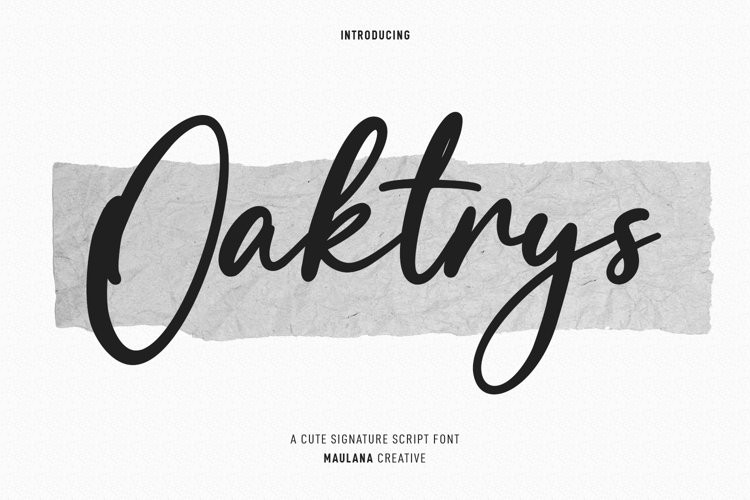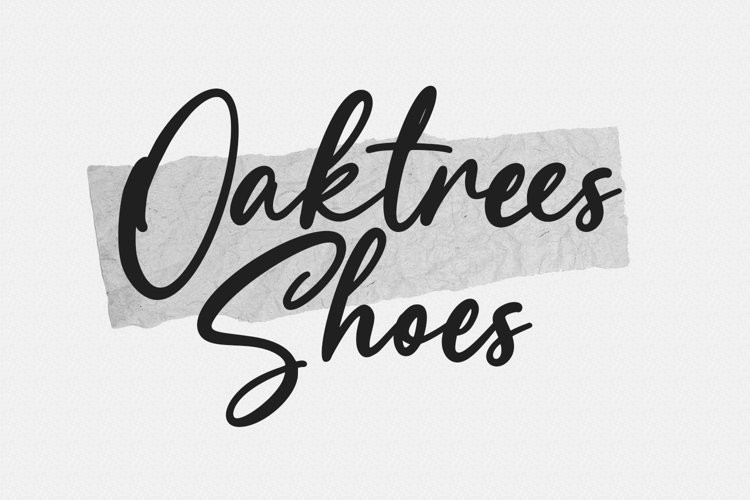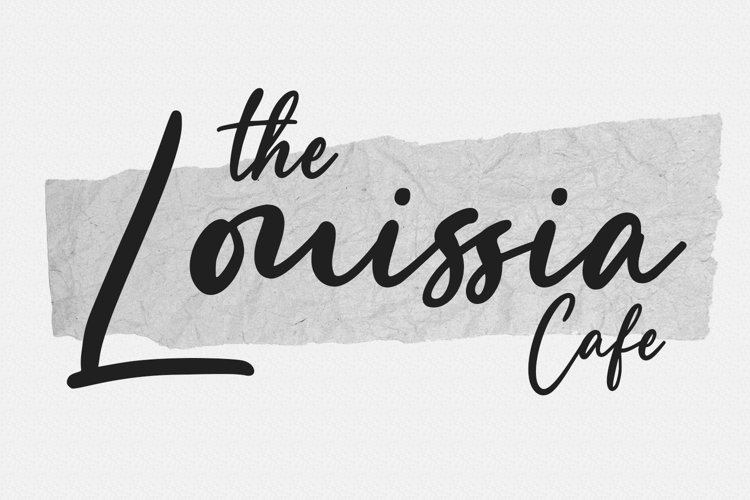
Oaktrys Font
Oaktrys FontOaktrys is a casual handwritten script font. With bold contrast stroke, fun character with a bit of ligatures and alternates. To give you an extra creative work. Oaktrys font support multilingual more than 100+ language. This font is good for logo design, Social media, Movie Titles, Books Titles, a short text even a long text letter and good for your secondary text font with sans or serif. Make a stunning work with Oaktrys font.